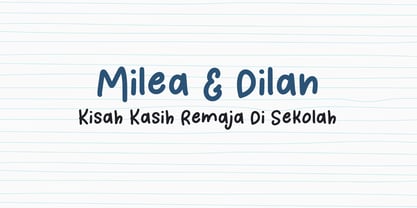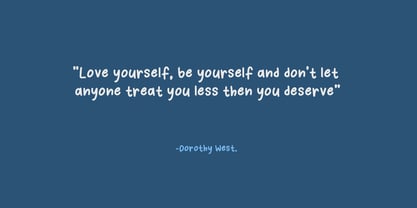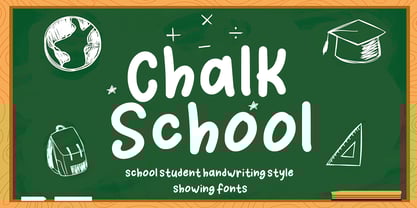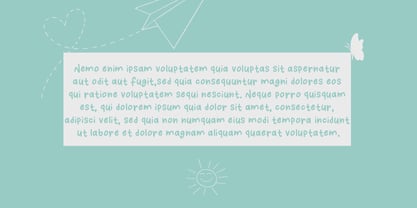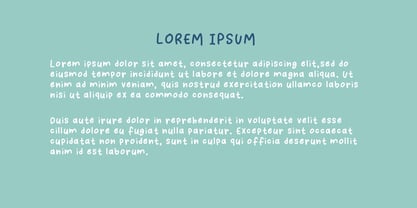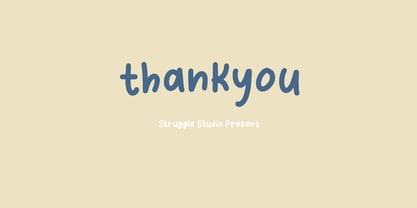
Chalk School
The Chalk School Font Family was designed by Andri Kurniawan and published by Struggle Studio. Chalk School contains 1 styles. More about this family
"Chalk School" is a playful handwritten font inspired by the classic look of chalk on a school blackboard. It brings a fun, friendly, and educational vibe, making it perfect for designs related to school, children, and classroom settings.
Key Features:
• Rounded, casual lettering that mimics student handwriting.
• Chalk-texture effect for an authentic blackboard feel.
• Ideal for use in titles, posters, greeting cards, or any DIY project that aims to feel cheerful and educational.
• Includes extra school-themed doodles like a globe, graduation cap, backpack, and ruler, adding to the learning atmosphere.
Perfect for:
• Educational materials (classroom posters, worksheets, etc.)
• Children’s product branding
• School-themed birthday invitations
• Creative back-to-school projects